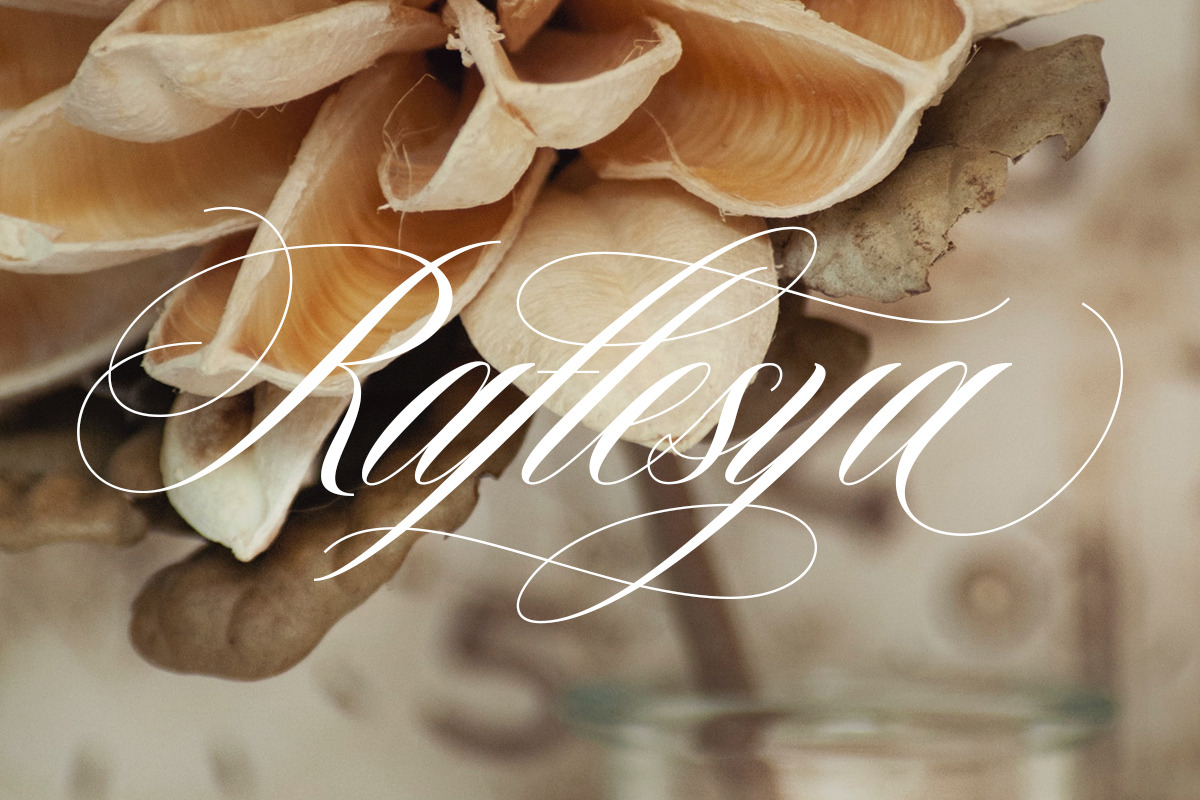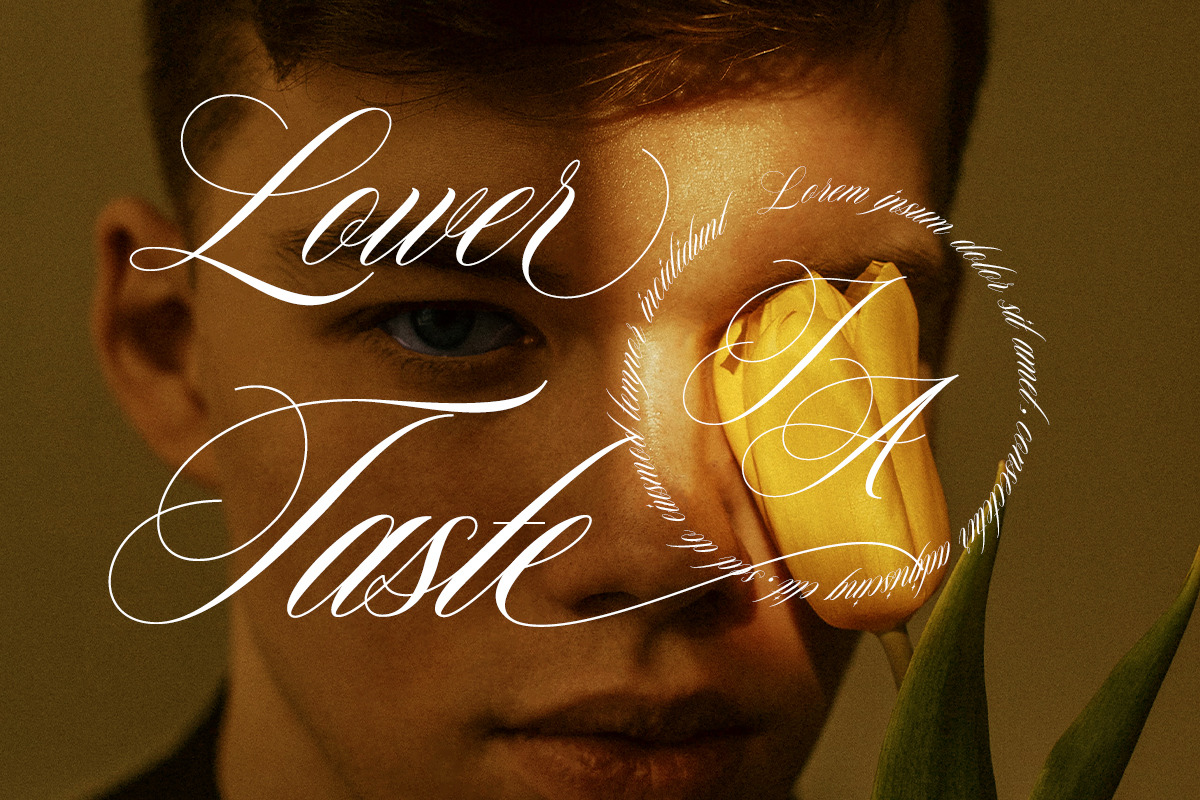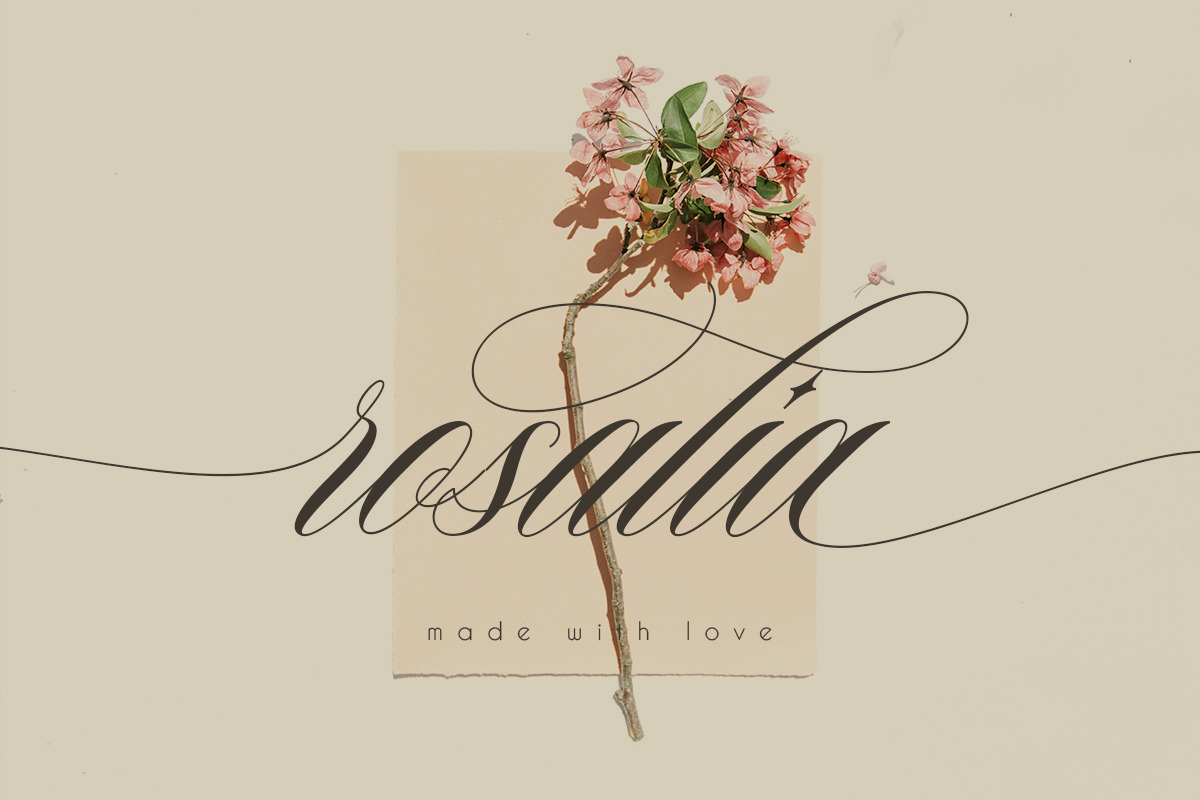
Angeline Font
Angeline is a modern calligraphy font. It is perfect for branding projects, logo, t-shirt designs, social media posts, advertisements, product packaging, product designs, label, watermark, invitation, stationery and any projects.
The font includes uppercase and lowercase letters, numerals, a large range of punctuation, and ligatures. Uppercase and Lowercase letters include over 10 ending swashes and alternative font.
Angeline Calligraphy Font